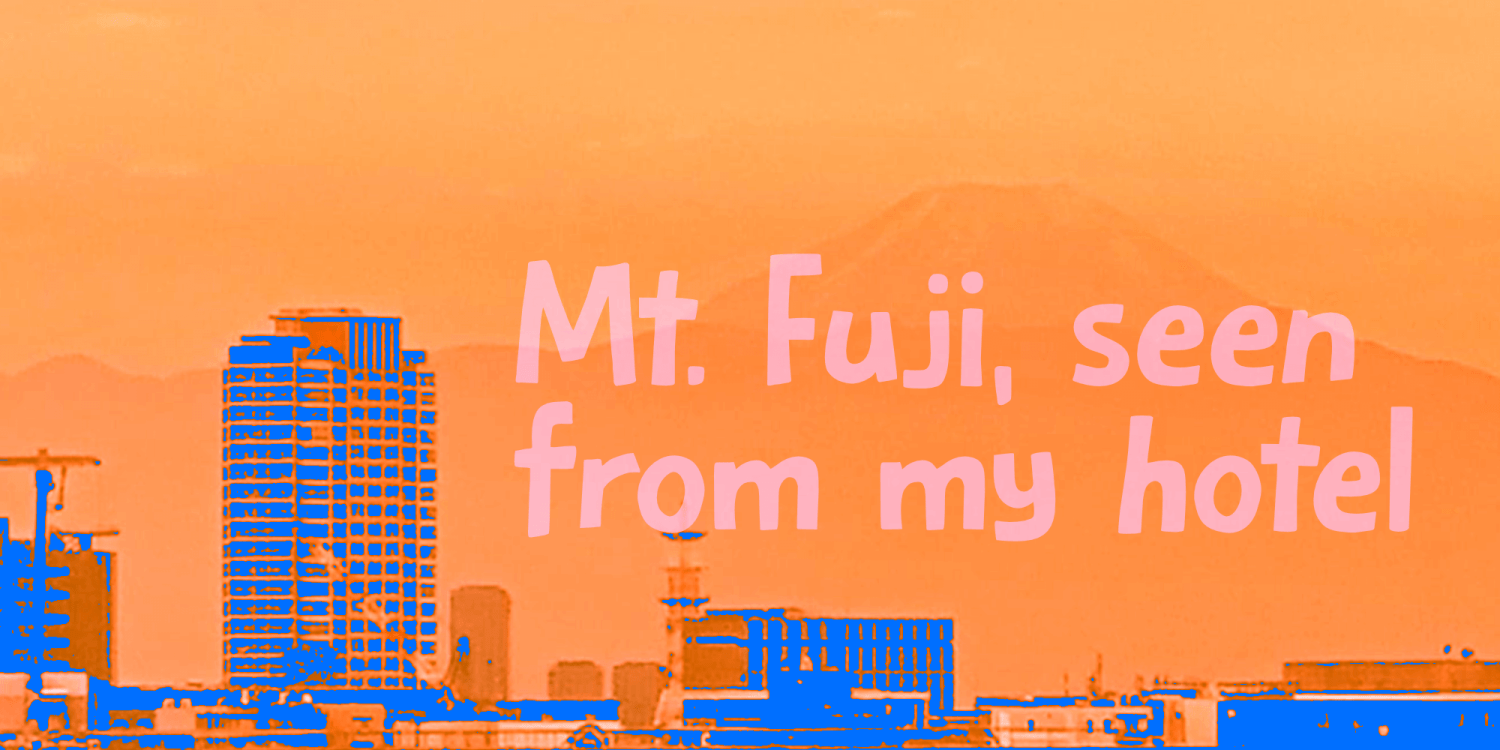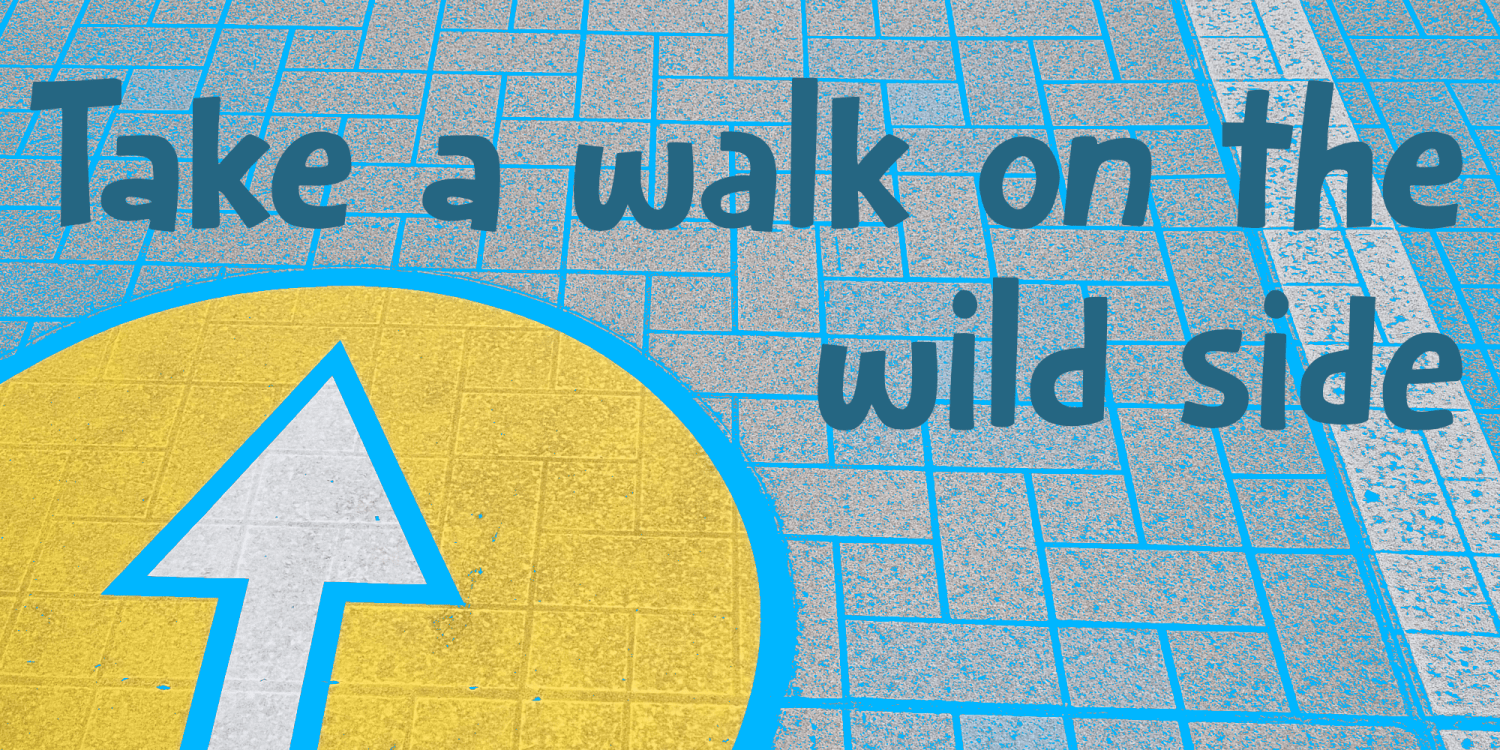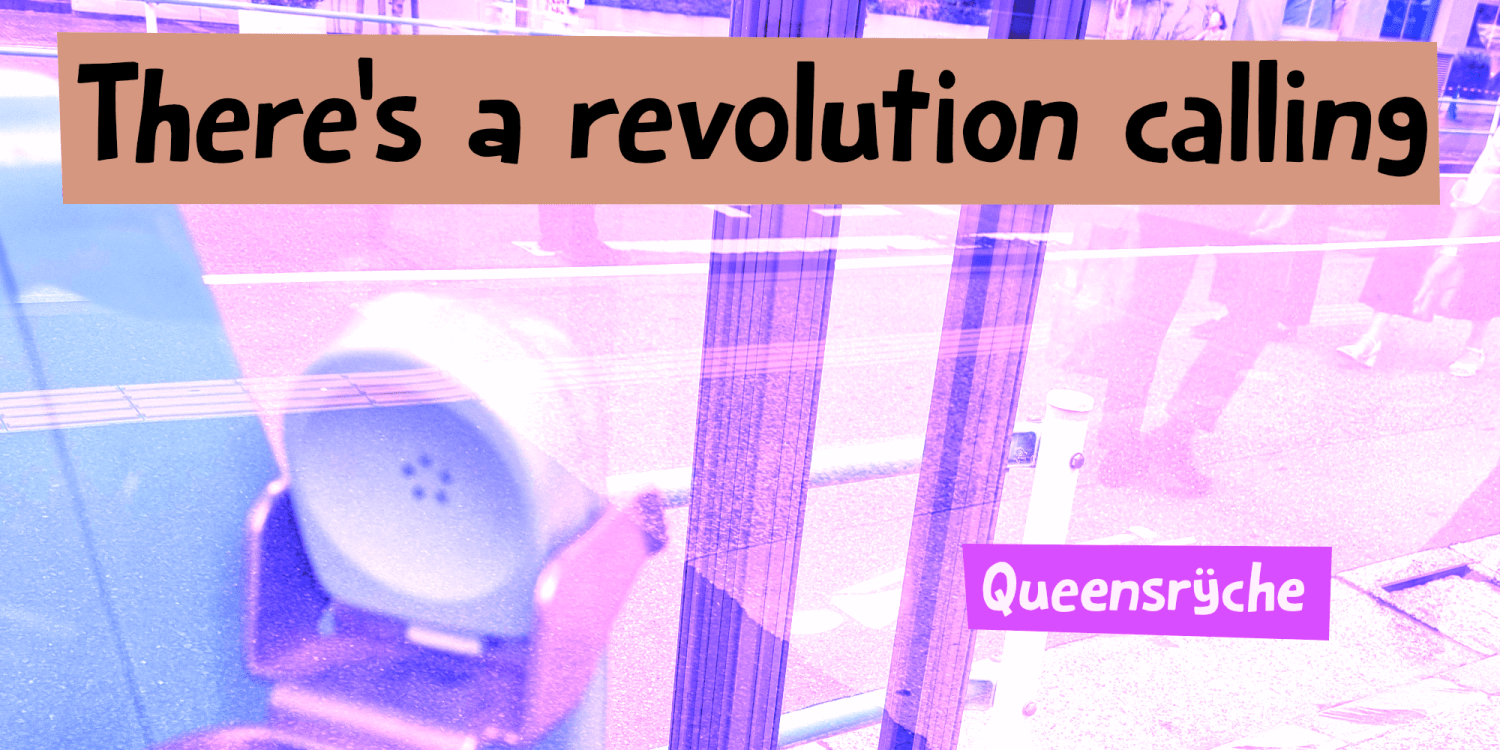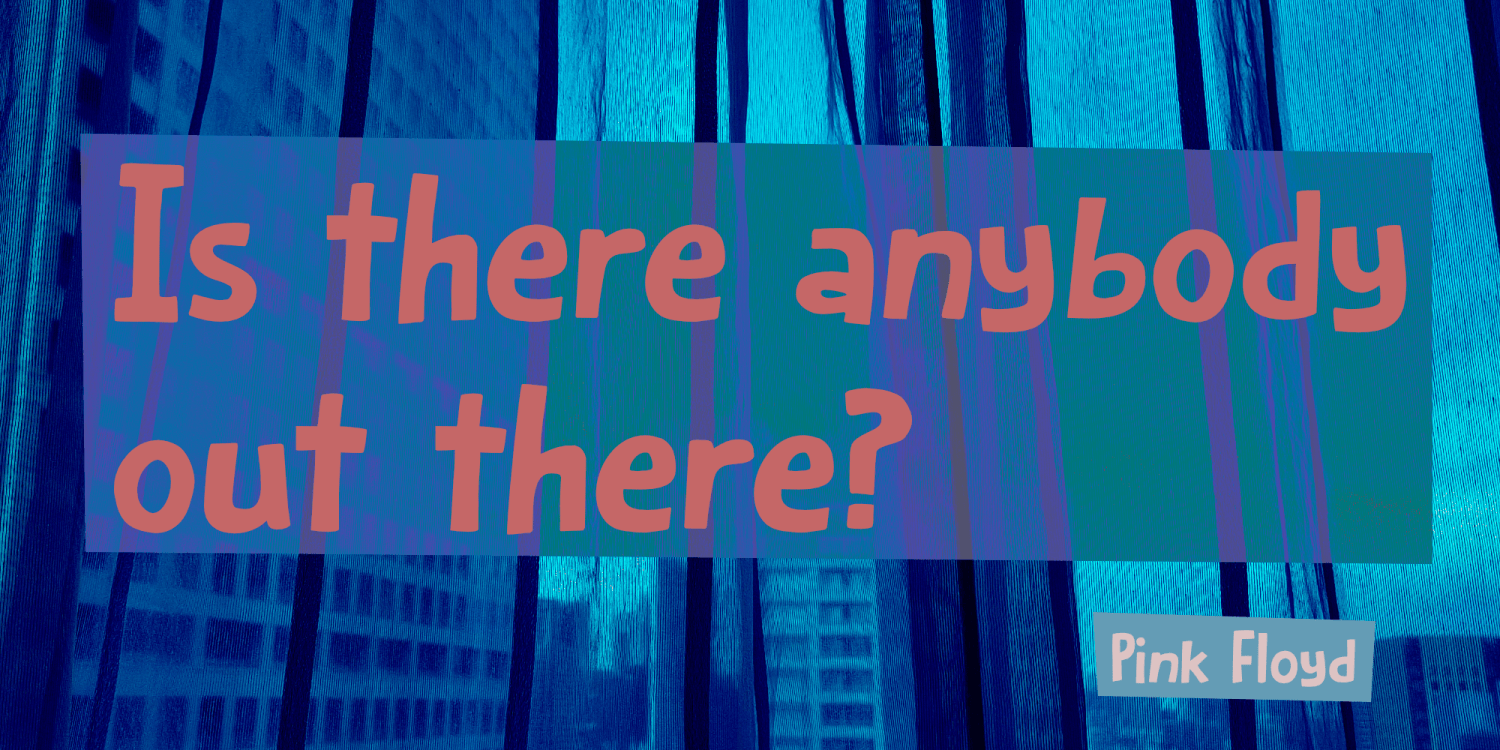
About Indoor Survival
Indoor Survival is a fun and happy comic font I made while touring Japan. I used to be a tour guide for years, but when I became a father, I quit, because I didn’t want to be the ‘man who cuts the meat at xmas’. I really loved being…